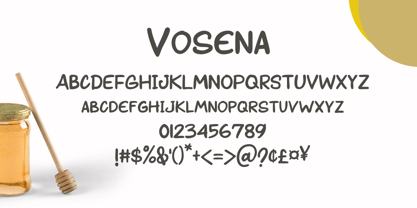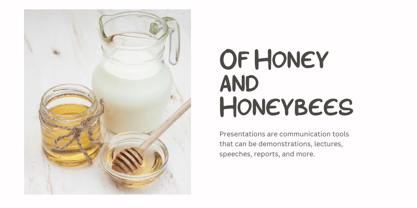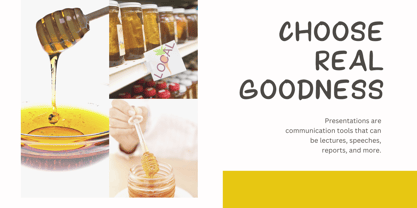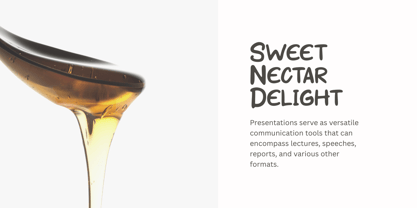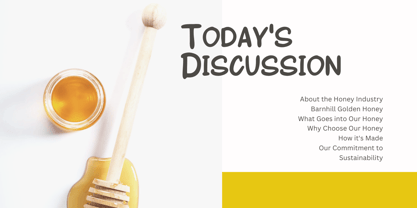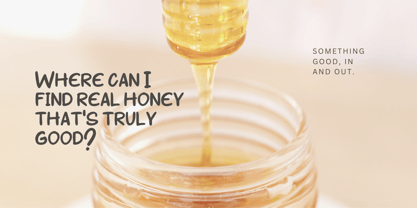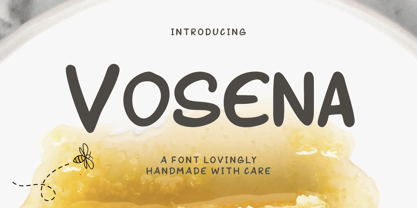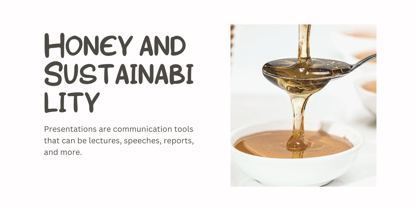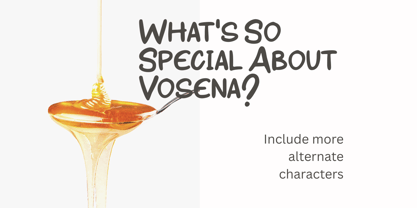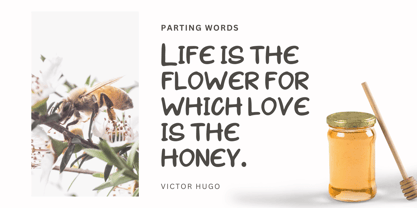
Vosena
The Vosena Font Family was designed by khaidir and published by Gatype. Vosena contains 1 styles. More about this family
Vosena – Handwritten Display Font
Vosena is a handwritten display font designed for modern creative projects. With a bold yet casual look, it works beautifully for branding, social media posts, product packaging, event posters, and more.
Clean and confident, Vosena brings personality to your designs without feeling overdone — perfect for layouts that need a fresh, handcrafted vibe.